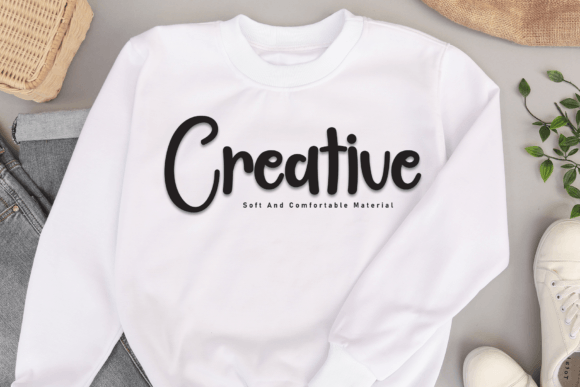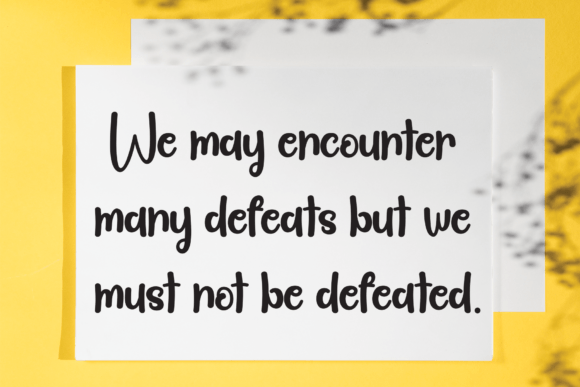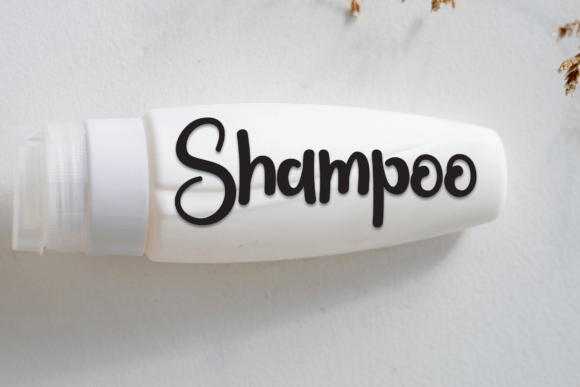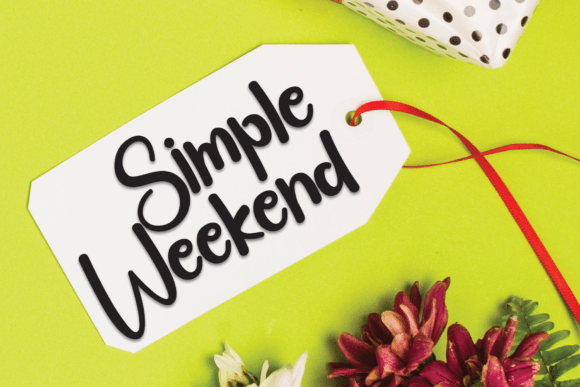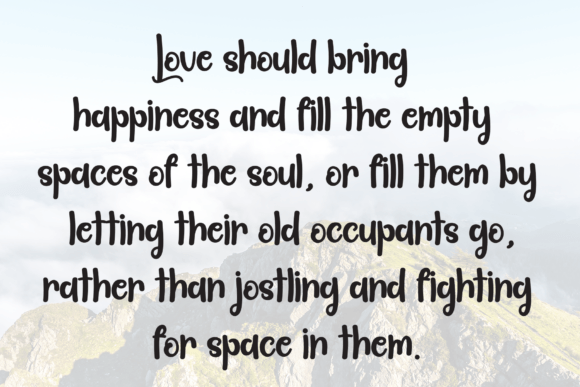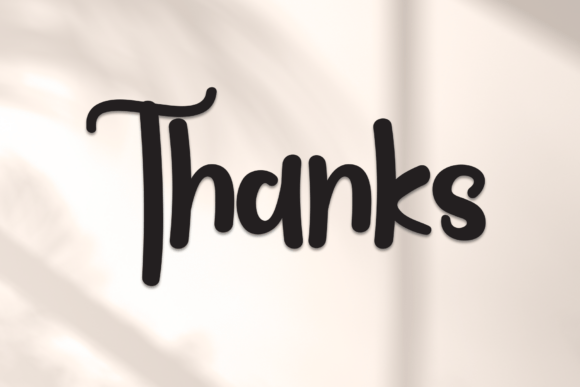
Introduction to Shadow Bolder Font
Introducing a charmingly engaging typeface, handwritten and brimming with warmth.
This delightful and playful font perfects the art of adding a fun, personal touch to your projects It flawlessly captures the essence of lovingly crafted wedding invitations and heartfelt greeting cards, or indeed, any design craving a sprinkle of whimsical fun.